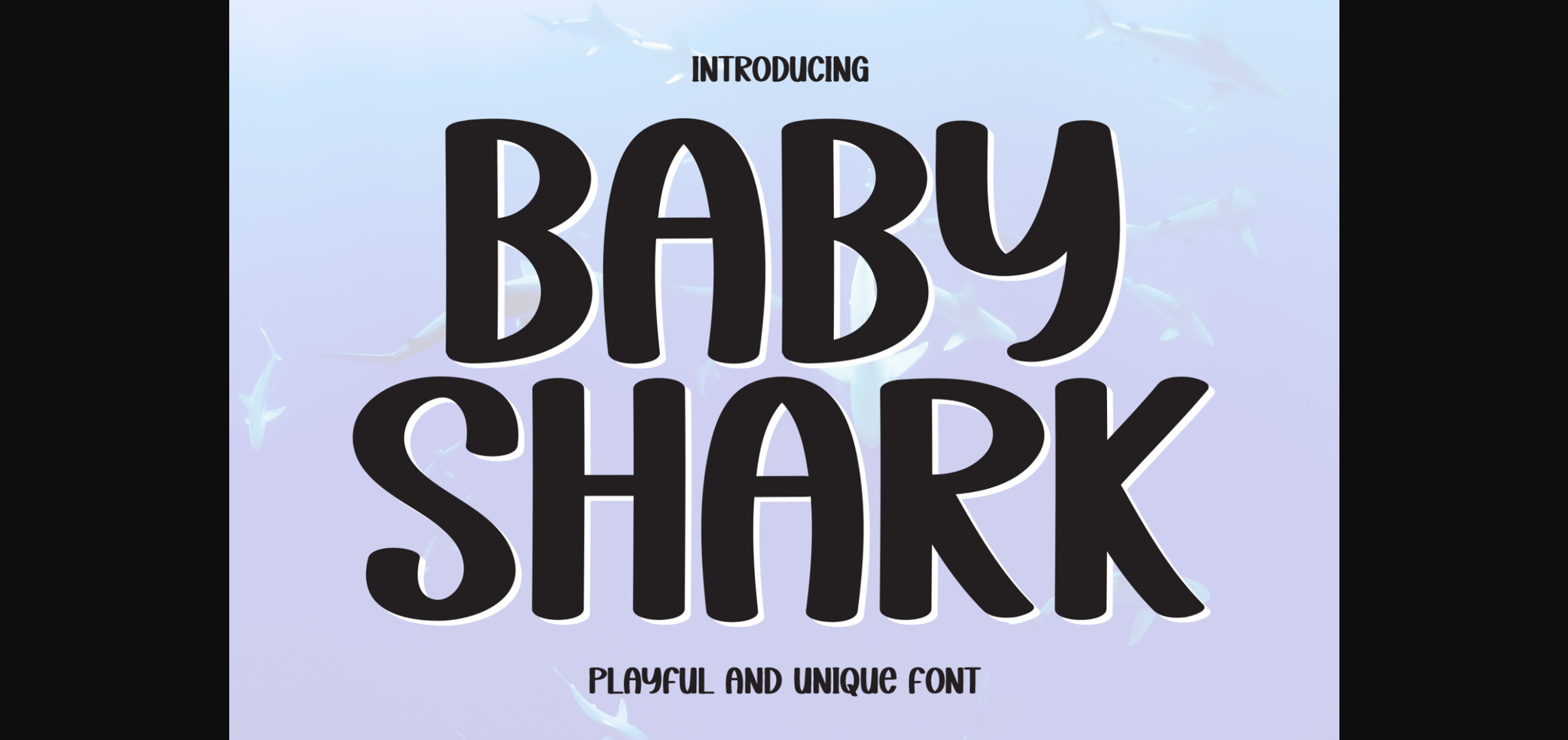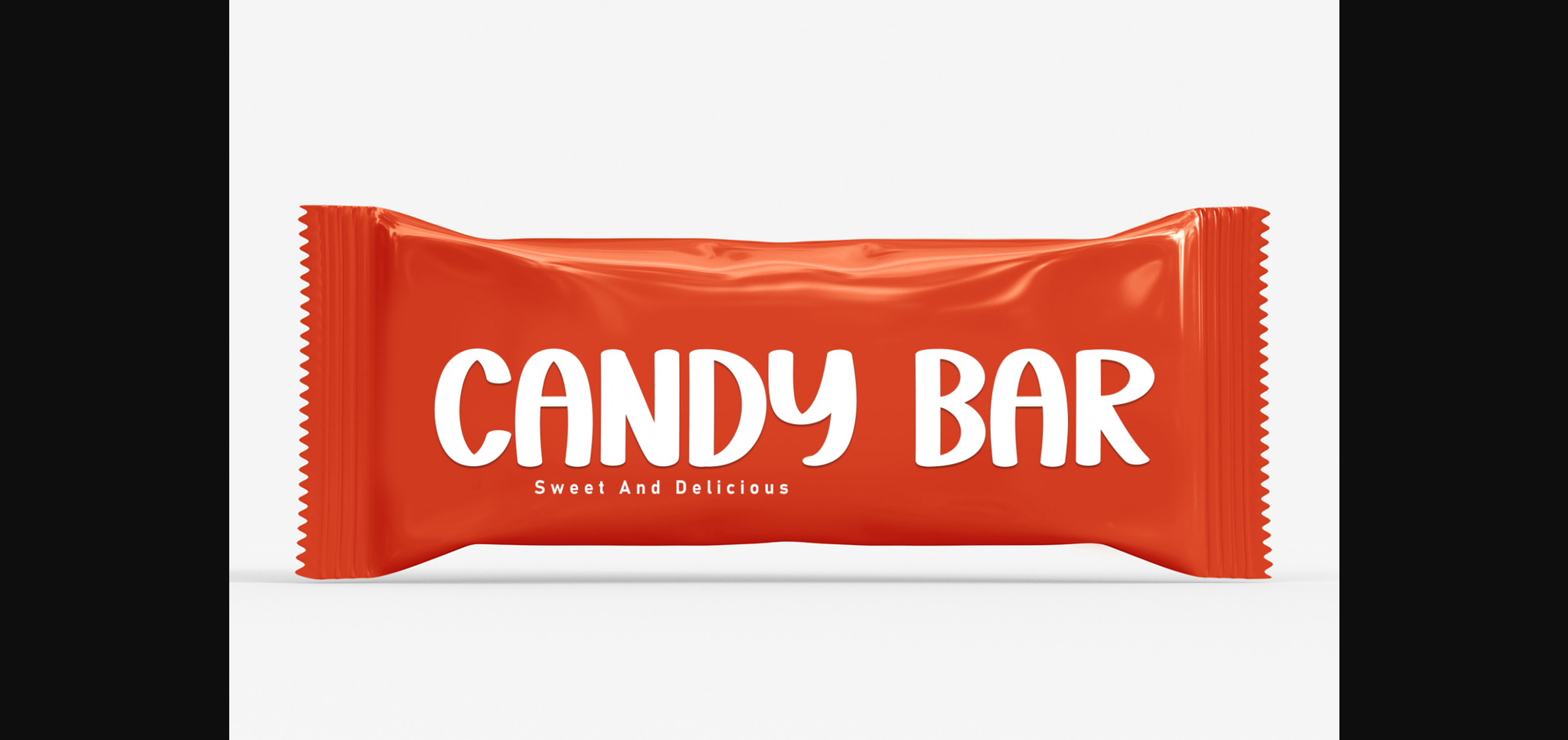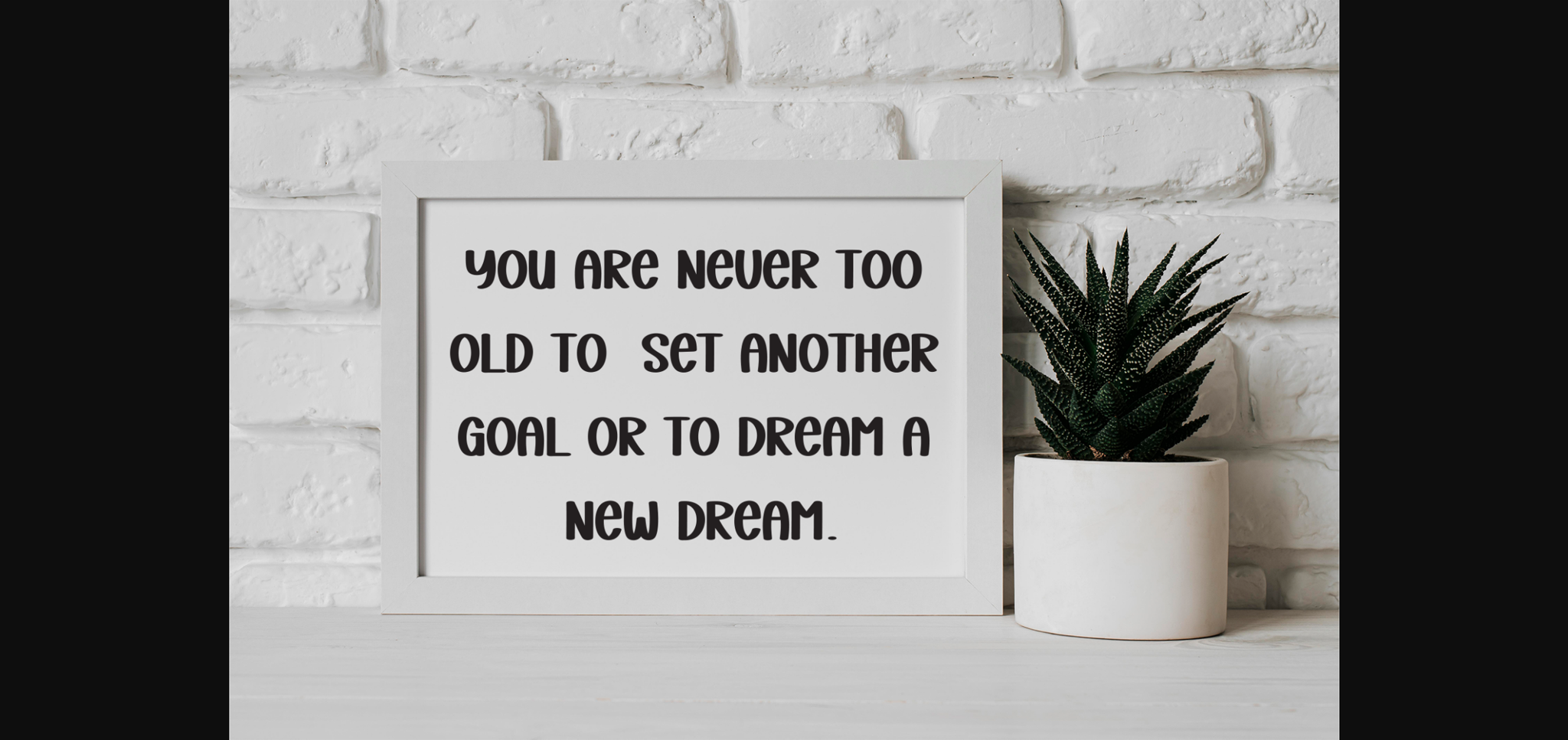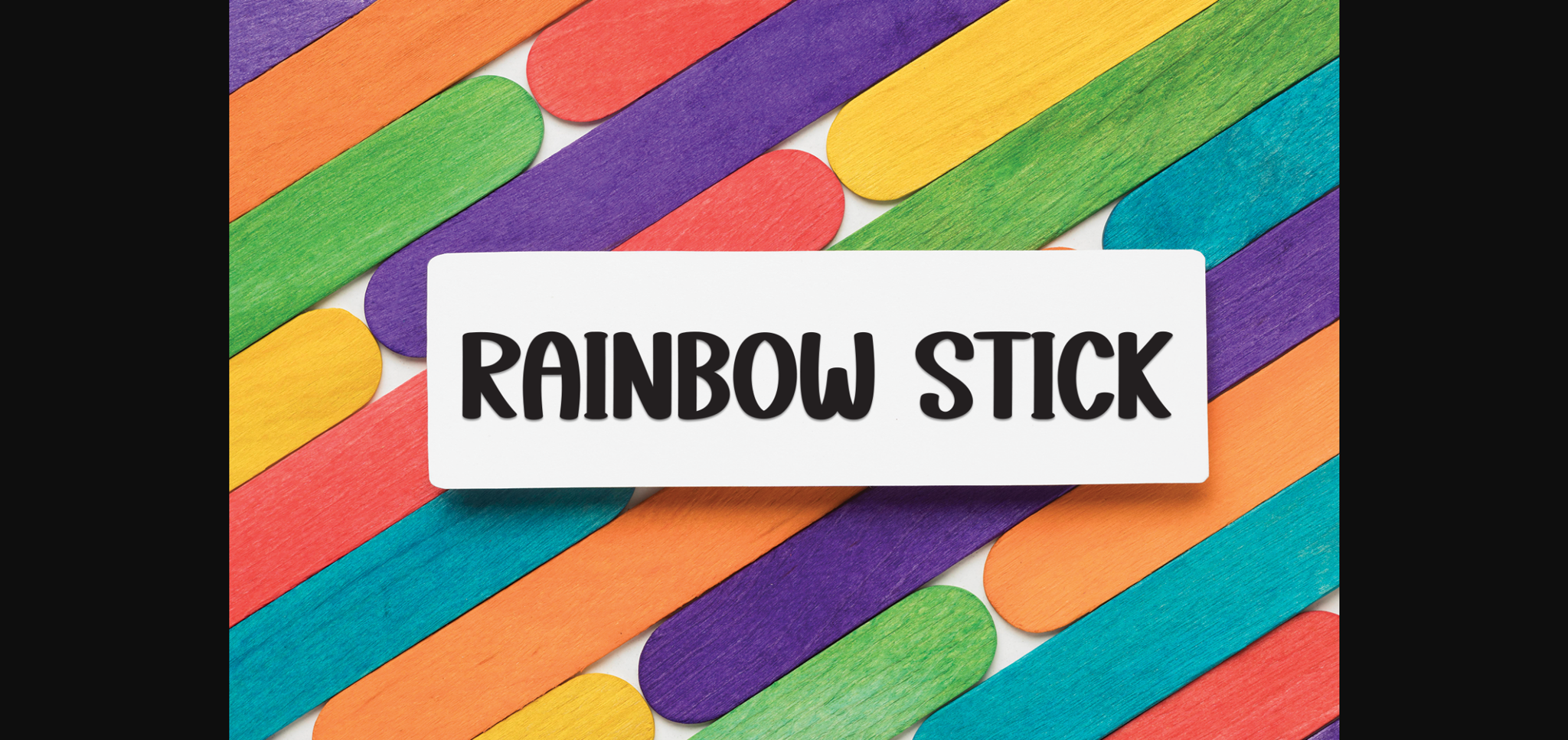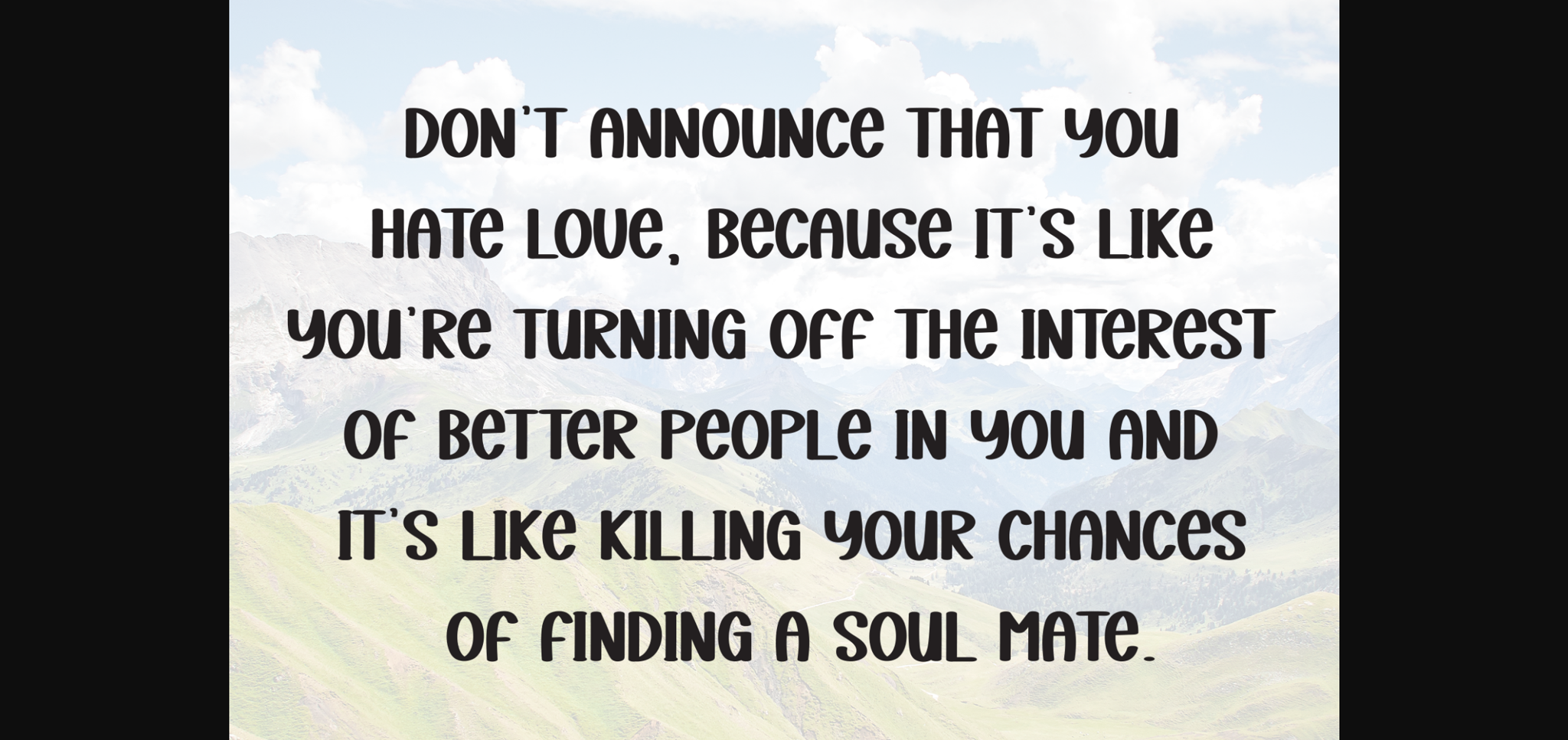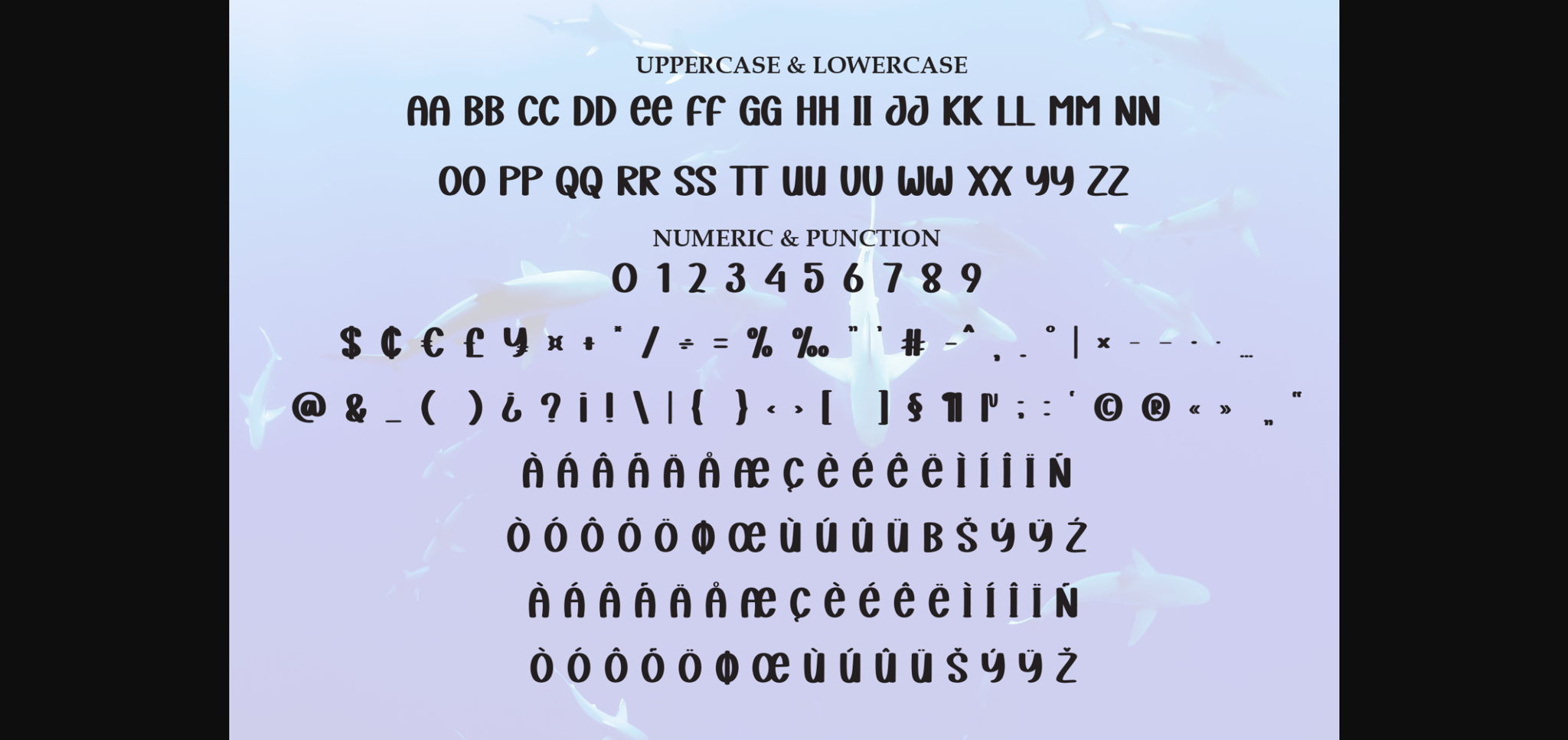
HomeSans Serif FontsBaby Shark Font Sans Serif Fonts Baby Shark Font FacebookXPinterestWhatsApp 1 of 10 ... Baby Shark Font Poster 2... Baby Shark Font Poster 3... Baby Shark Font Poster 4... Baby Shark Font Poster 5... Baby Shark Font Poster 6... Baby Shark Font Poster 7... Baby Shark Font Poster 8... Baby Shark Font Poster 9... Baby Shark Font Poster 10... About Baby Shark Font Baby Shark is a fun and versatile sans-serif font. Whether you’re using it for crafting, digital designing, presentations, or greeting card making, it’s perfect! DOWNLOAD NOW People also explored Farm Fresh Trees Font Industrial Revolution Font Hobla Font Remini Font Messy Christmas Font Paggu Font Daddy Bee Font Attomi Gilbert Font Elisabeth Font 879 0 TagsBaby Shark Font Previous articleFather Hero FontNext articleLasercut Font LEAVE A REPLY Cancel reply Comment: Please enter your comment! Name:* Please enter your name here Email:* You have entered an incorrect email address! Please enter your email address here Website: Save my name, email, and website in this browser for the next time I comment. Personal Use Free Gila Personal Use Free Read more about this font Carved Wood Personal Use Free Read more about this font Hunting Font Personal Use Free Read more about this font Gaboed Personal Use Free Read more about this font BLOG Free vs Paid Fonts: Why Investing in Premium Fonts Is Worth It Free vs Paid Fonts: Why Premium Fonts Are Worth It in 2025 The debate of free vs paid fonts continues in the design world. While... 5 Fonts That Will Dominate Design Trends in 2026 Transform Your Website: Elevate Your Typography with 7 Best Web Font Generators Elegant Wedding Invitation Fonts – Handwritten & Script Fonts